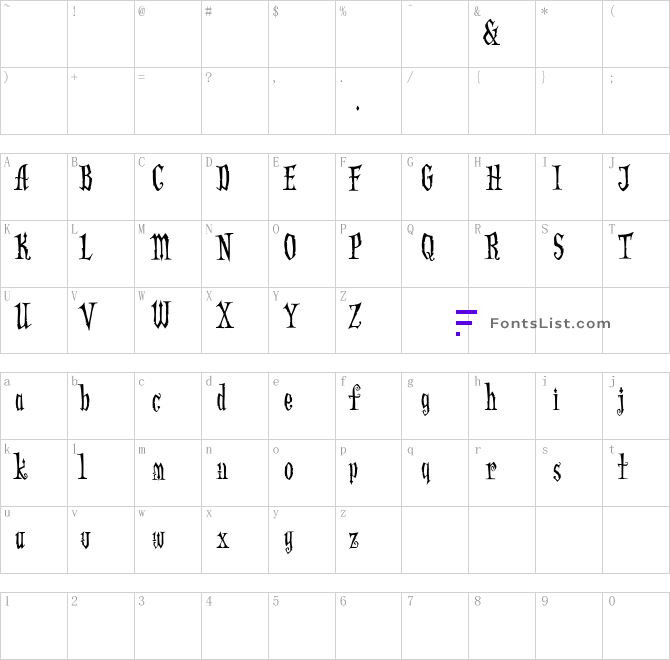
- Font Name:Addams
Addams-Regular.ttf is a very beautiful artistic font, Addams-Regular.ttf is widely used in the design and printing of various books and pictures,Addams-Regular.ttf has a strong visual impact,Addams-Regular.ttf is a commonly used font in newspapers, magazines and books, and is used in posters, e-commerce Poster design, store design, logo design, font design and other fields.Addams-Regular.